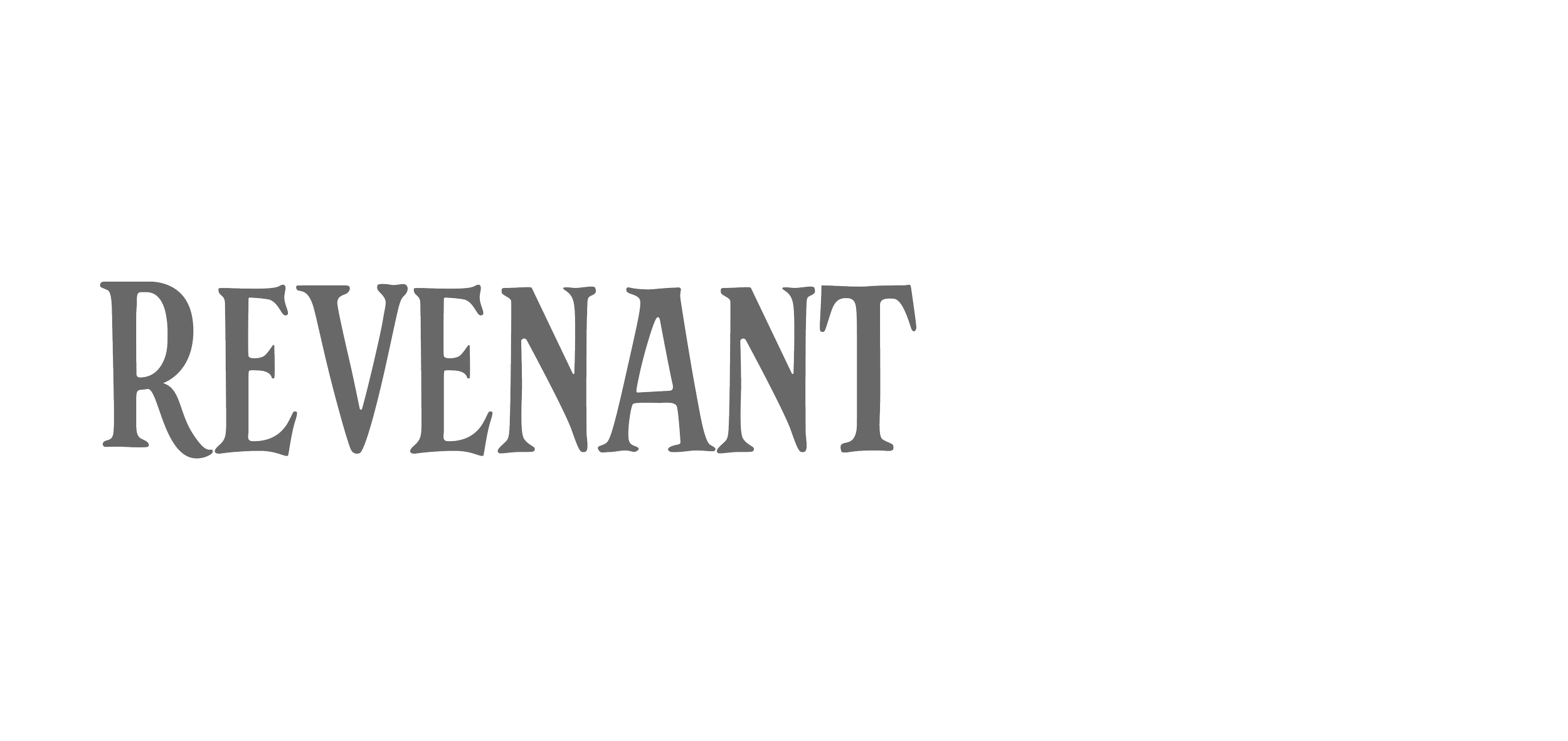
Revenant
Expressive, human, imperfect. YRT Revenant offers up a condensed display serif imbued with an unapologetic quality inside each of the characters. Their uneven lining and clumsy terminals lend a specific voice and tone to the words set in this face.